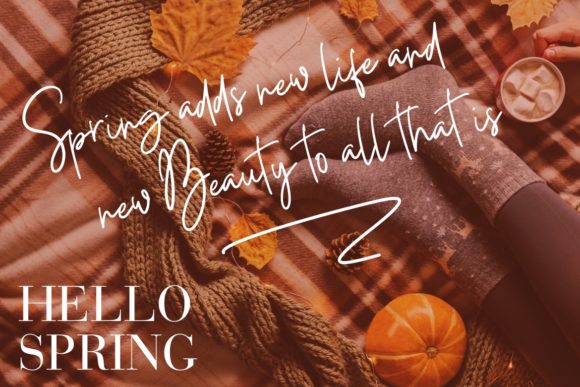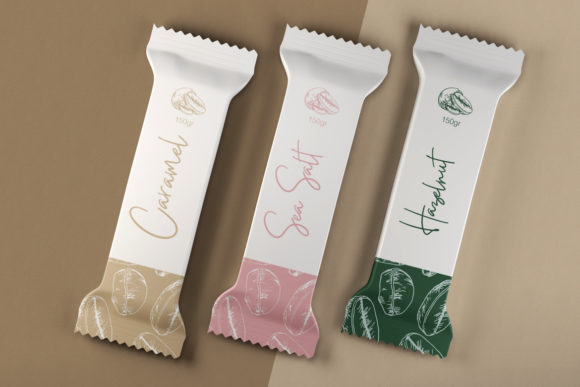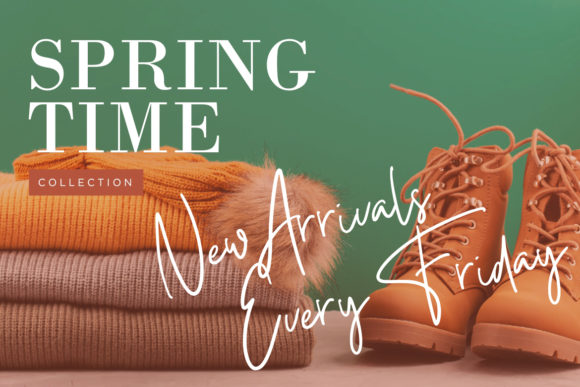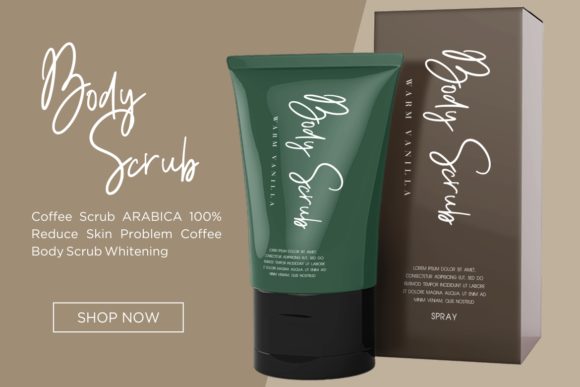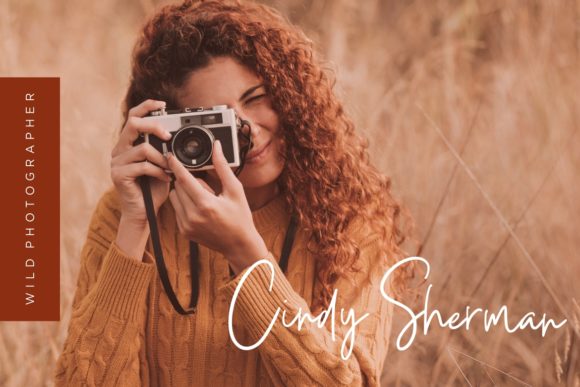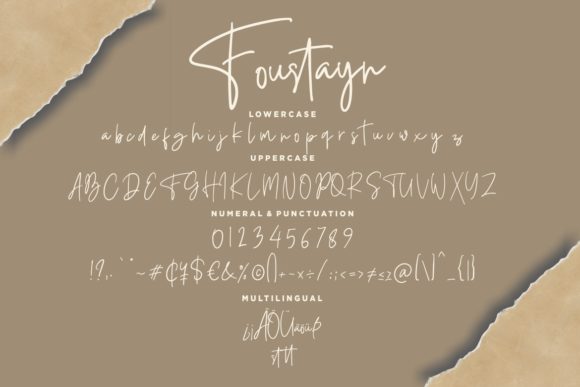
The Foustayn Font: A Simple yet Elegant Script for Creative Projects
An Honest Review of Foustayn
What I Love About Foustayn
- ✨ Simple yet elegant script style that’s perfect for creative projects
- 🌈 Beautifully designed to add a touch of sophistication to any design
- 📝 Versatile and works well for a variety of projects, from wedding invitations to blog headers
While Foustayn is an excellent font, it’s not without its quirks. 🤔 Here are a few things to keep in mind:
- ⚠️ Limited character set compared to other fonts, which may limit its use for certain projects
- ⚠️ May not work well with certain languages or special characters
The Story Behind Foustayn
Foustayn was designed by a team of typographers who wanted to create a simple yet elegant script font that would add a touch of sophistication to any design. The font was inspired by classic calligraphy and handwriting styles, with a modern twist. The designers aimed to create a font that was both beautiful and functional, making it perfect for creative projects.
Q: What is Foustayn font?
A: Foustayn is a simple yet elegant script font with a casual style, perfect for creative projects.
Q: What languages does Foustayn support?
A: Foustayn supports a range of languages, including English, French, Spanish, and more. However, it may not support all languages or special characters.